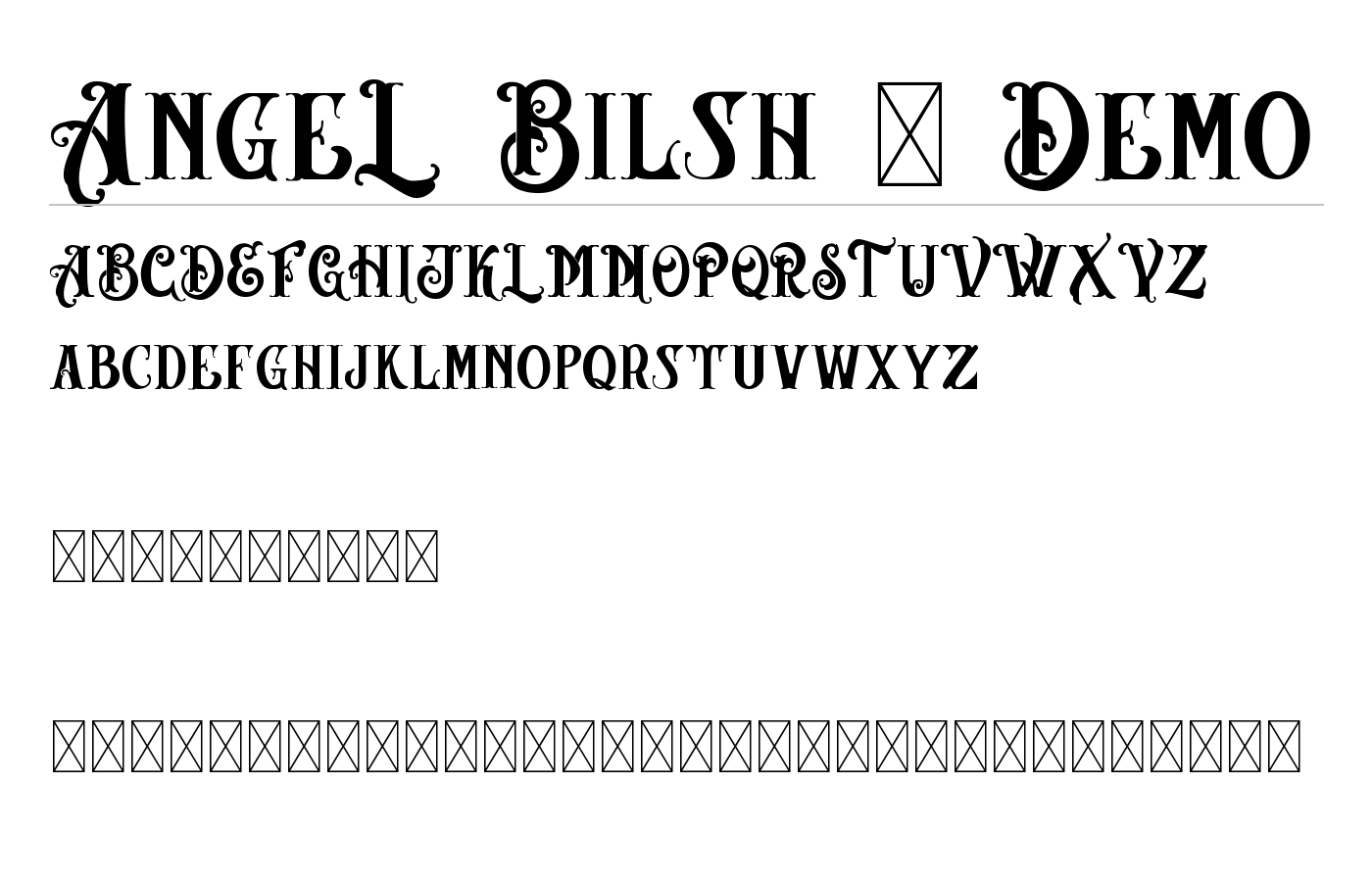
AngeL Bilsh is a decorative serif font featuring bold, condensed letterforms with dramatic high contrast and elaborate, ornamental details that evoke a vintage circus or Victorian era style. Its unique, playful flourishes and strong presence make it ideal for eye-catching headlines, logos, and packaging that seek a nostalgic, theatrical, or whimsical character. This font shines in creative branding and display uses where personality and flair are key.
AngeL Bilsh - Demo Font